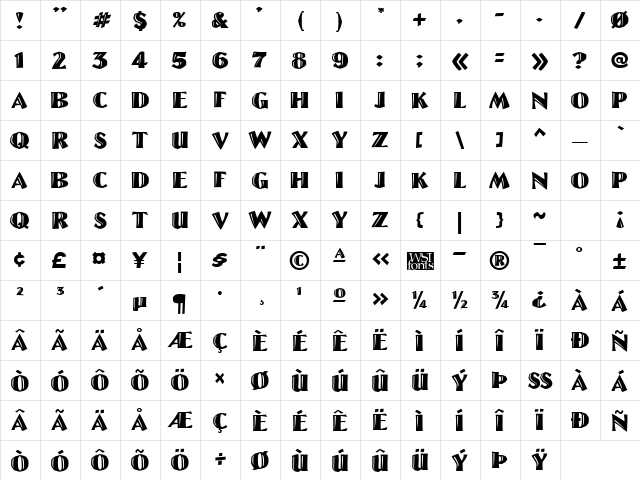
LinoLetterCut Regular
LinoLetterCut Family
Design Context for LinoLetterCut
LinoLetterCut is a composed and adaptable typeface that performs quietly and consistently across a wide range of design contexts.